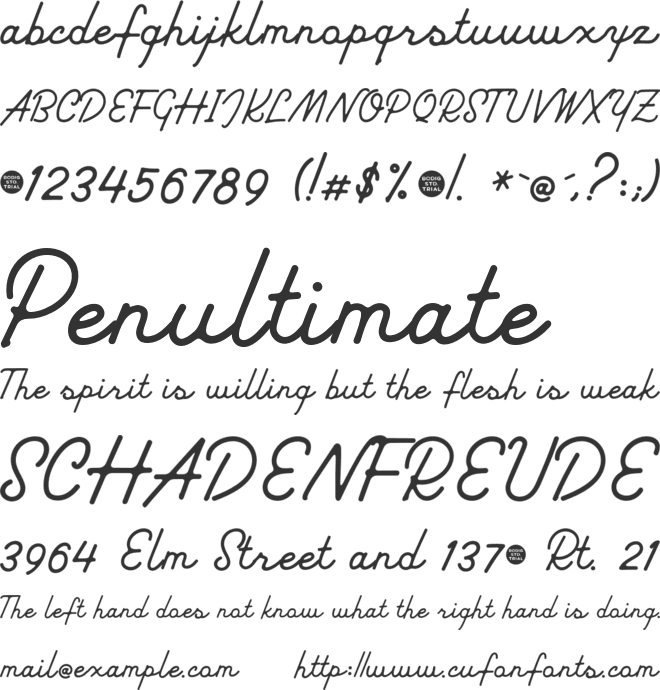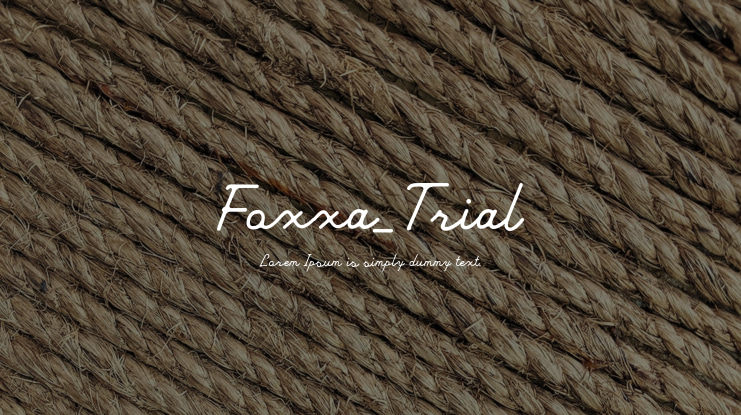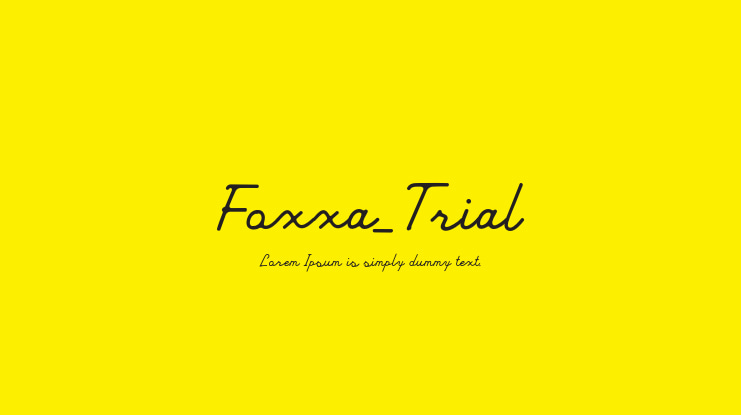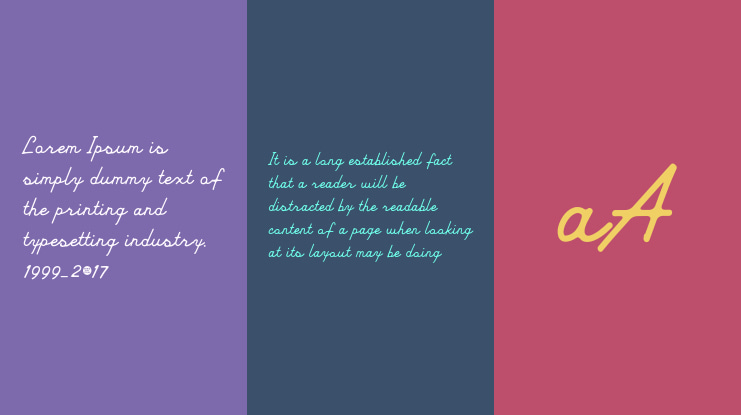
Foxxa_Trial Font
Foxxa is a monoline script font with a classy yet unpretentious tone. This font is as comfortable on product labels, t-shirts, logos, book covers, posters, etc. Add this font to your creative ideas and notice how it will make them stand out!